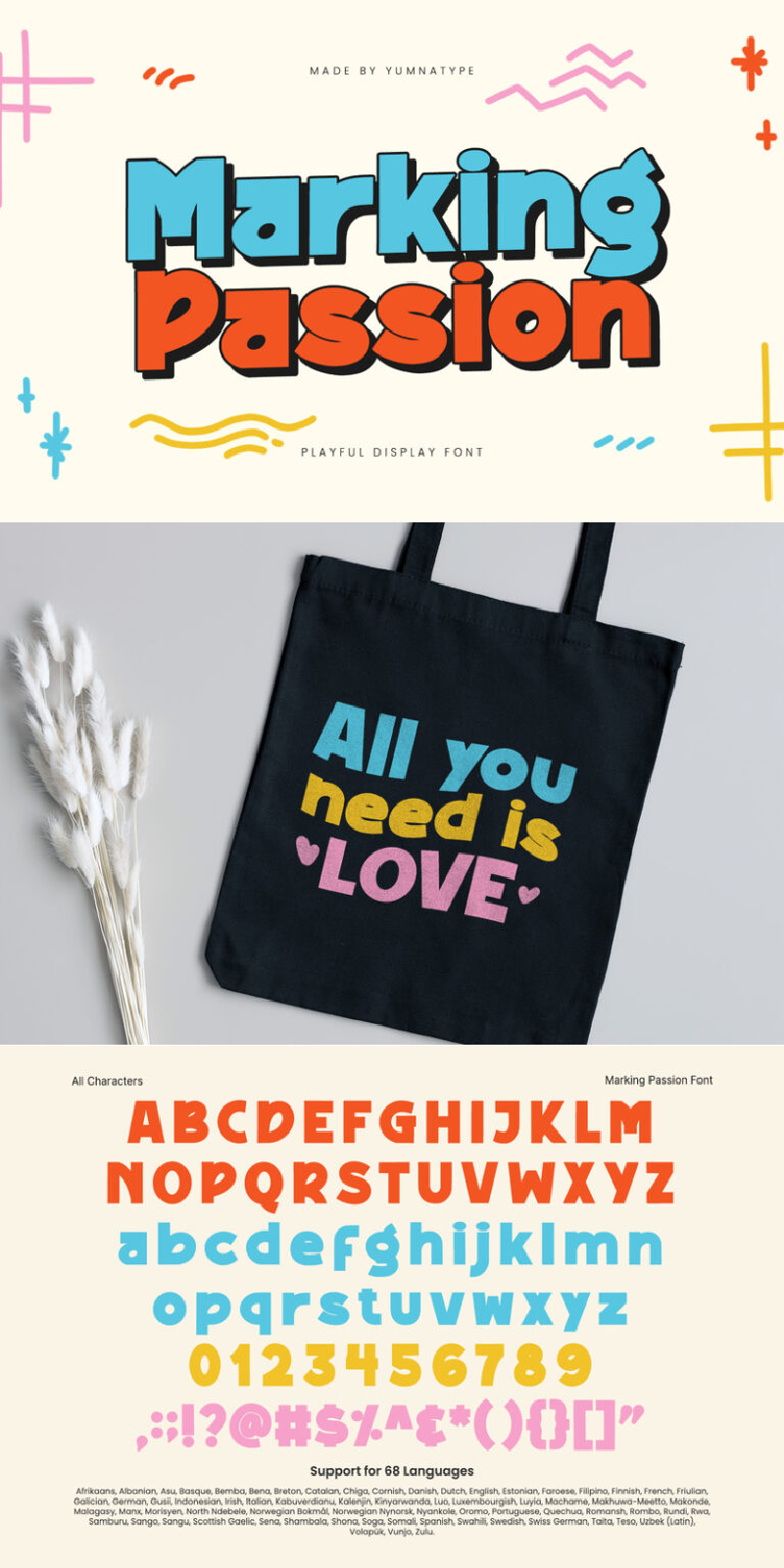
Marking Passion Font
About Marking Passion
Marking Passion is a captivating display font that combines playful style with robust design elements. Made in a thick weight and low contrast, this font stands out with its rounded yet sturdy shapes, creating a harmonious blend of softness and strength. Let Marking Passion infuse your designs with energy and warmth, bringing a touch of playful boldness to any project.In addition, enjoy the features here.
Marking Passion fits in headlines, logos, posters, flyers, branding materials, print media, editorial layouts, and many more designs. Find out more ways to use this font by taking a look at the font preview.